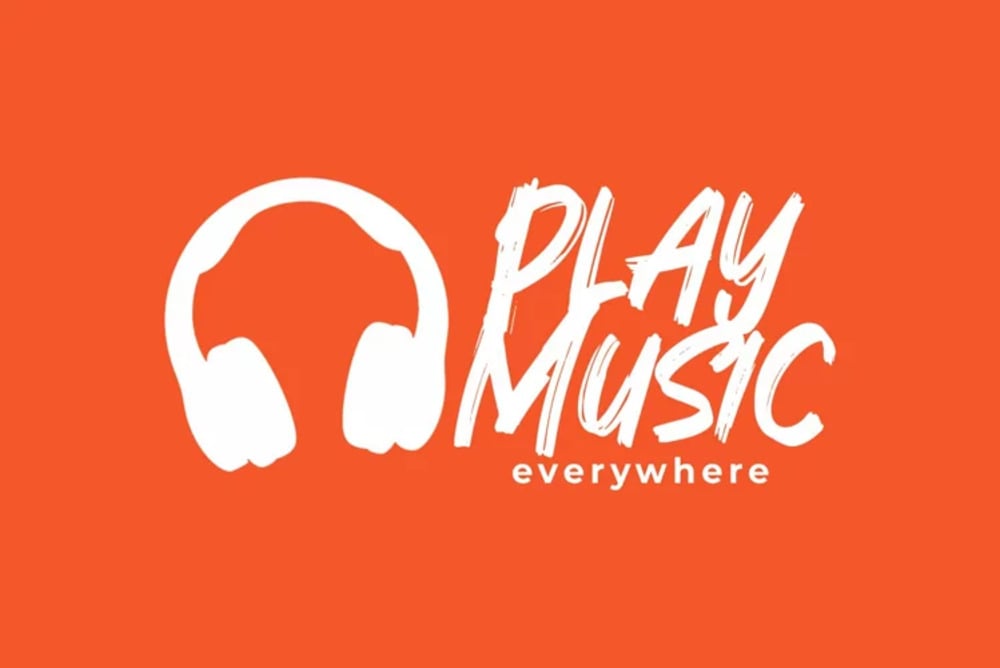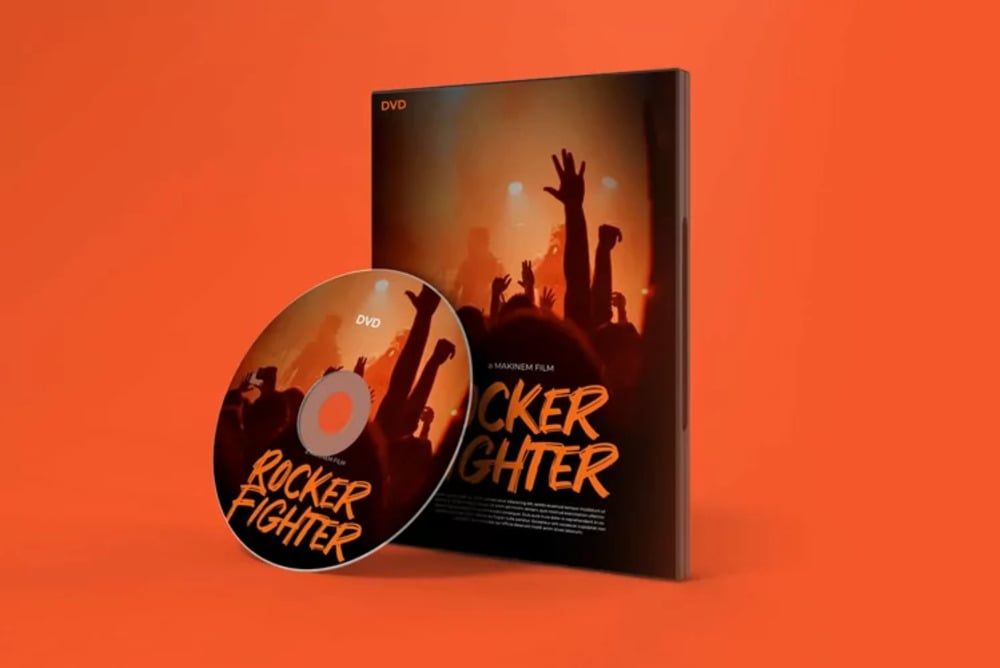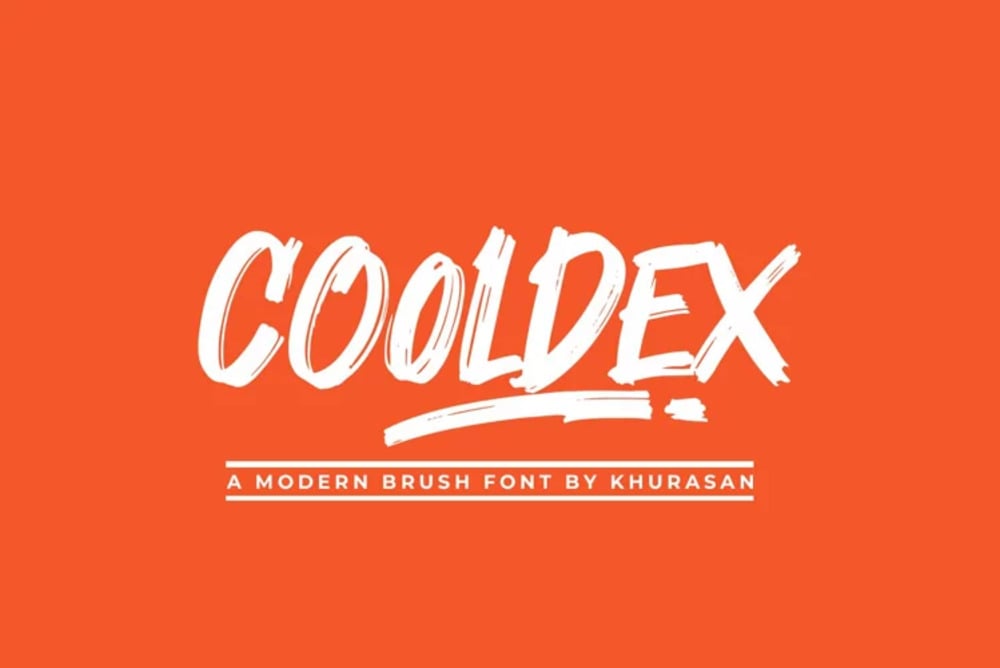
Cooldex Font
Cooldex is a sleek, modern font that blends futuristic minimalism with a bold, edgy aesthetic. Its clean lines and dynamic curves create a contemporary, high-tech feel, perfect for branding, digital design, and cutting-edge visuals. Cooldex exudes confidence, innovation, and style, making it ideal for projects that demand a cool, sophisticated, and effortlessly modern typographic presence.